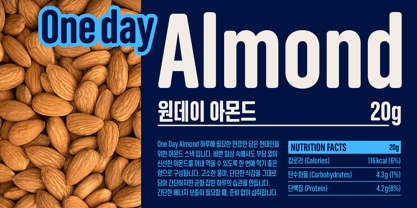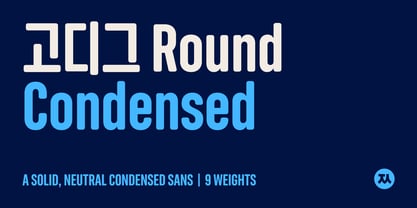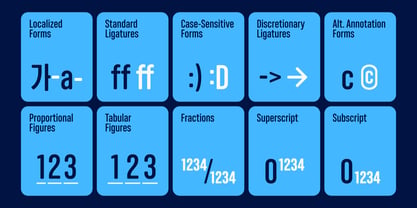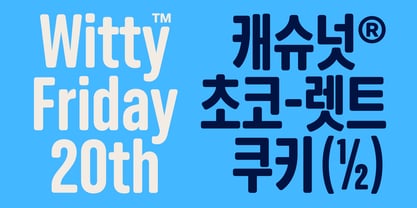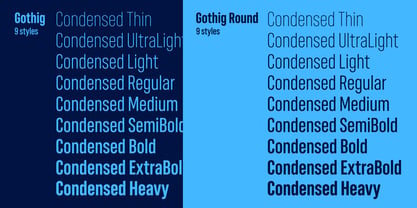
Gothig Round
by StudioJASO
The Gothig Round Font Family was designed by StudioJASO and published by StudioJASO. Gothig Round contains 9 styles and family package options. More about this family
Gothig Round is a condensed gothic typeface with a bold, solid presence in a narrow width. Built on a strong silhouette, it fits effortlessly across a wide range of styles, from casual graphics to clean, minimal layouts. Its confident proportions and refined structure make it especially effective for headlines, branding, and any design that needs clarity with impact.
Independent typeface designer active in South Korea. Interested and focused on the harmonization of Latin and Korean alphabet (or Hangul) fonts.His fonts have extensive language support covering Latin and Hangul. and Each font includes: 2,000 to 3,000 Hangul syllables, the smallest unit for expressing modern Korean; Latin Basic; punctuation; symbols for Korean codepage.